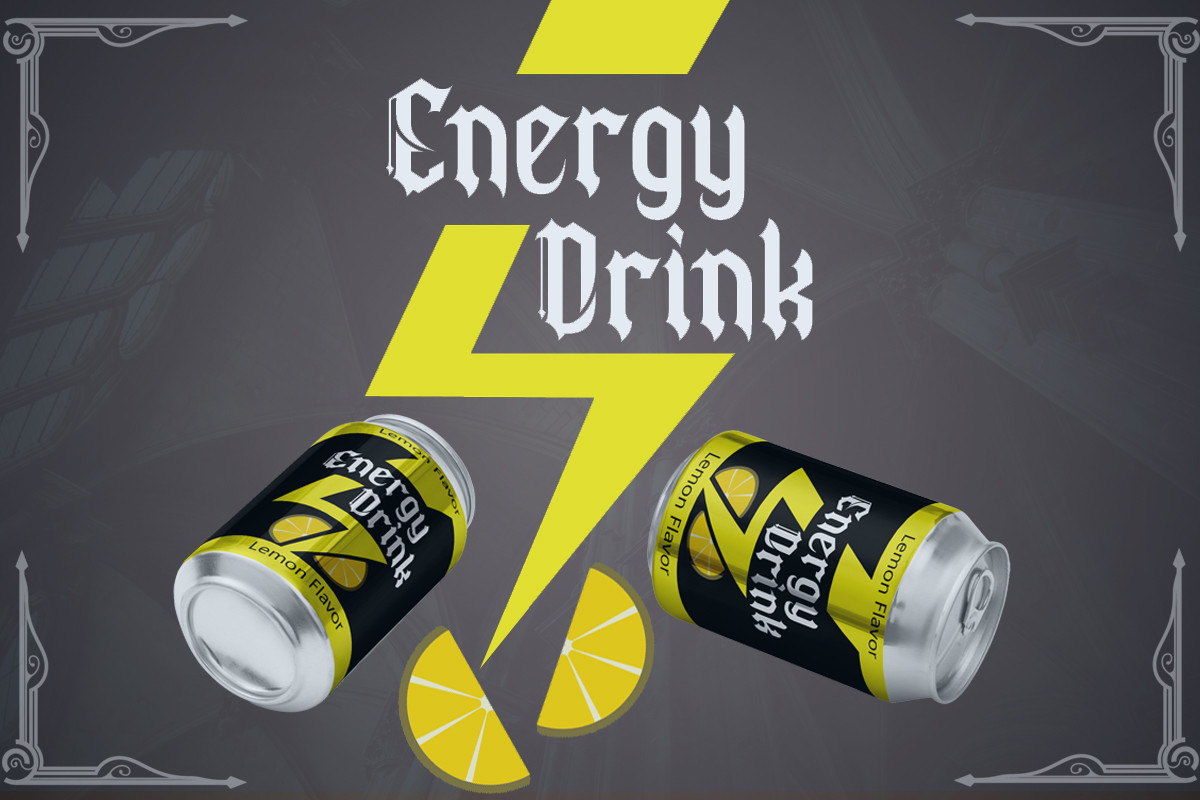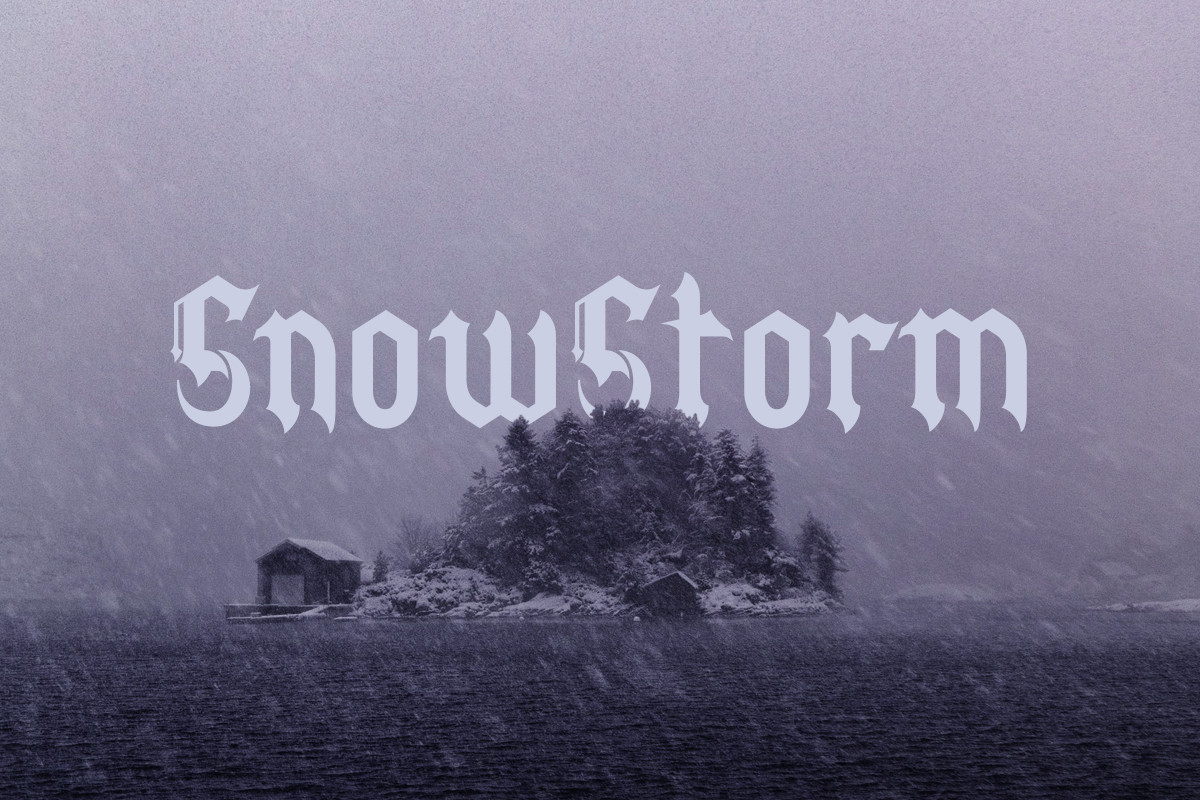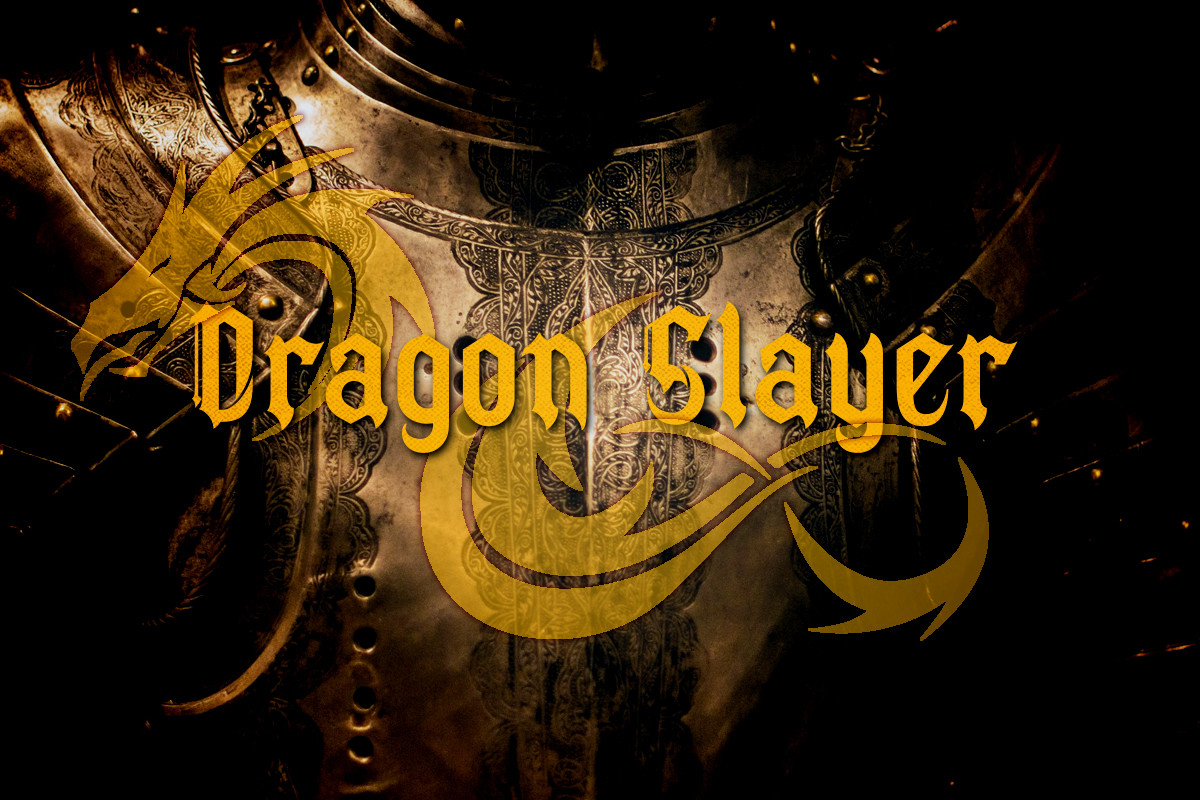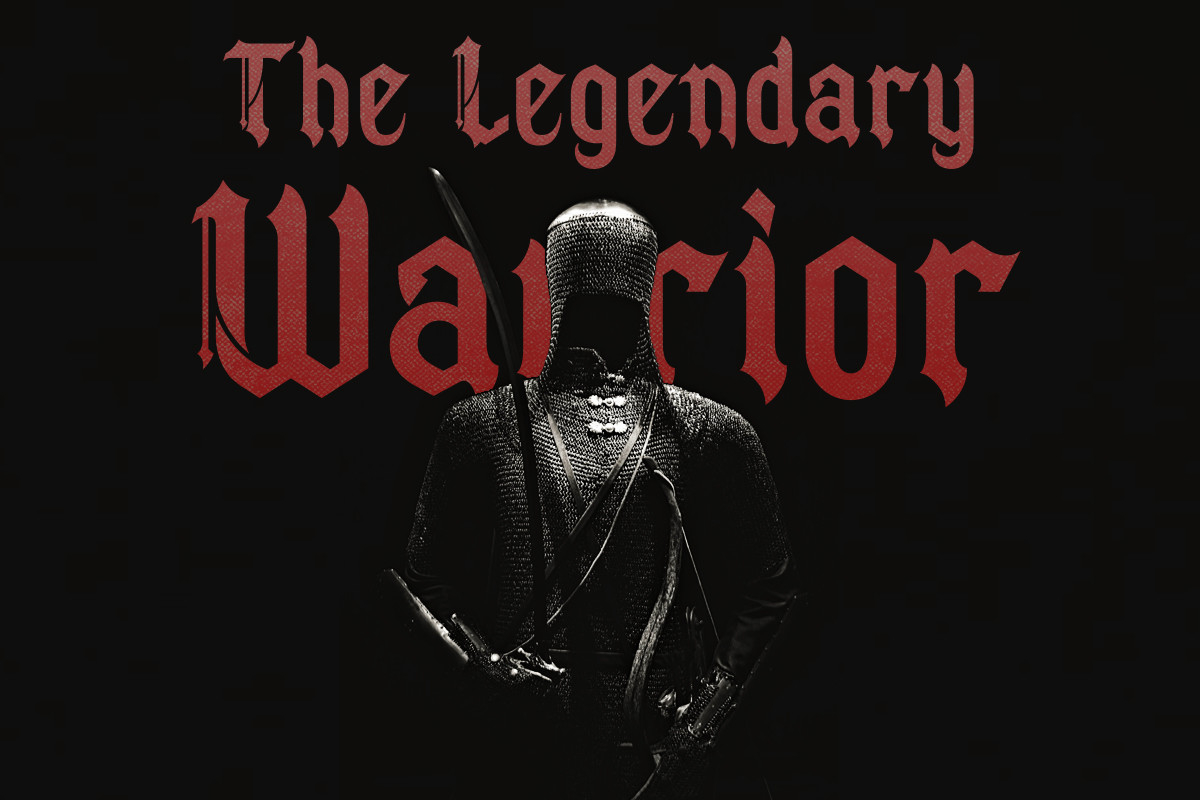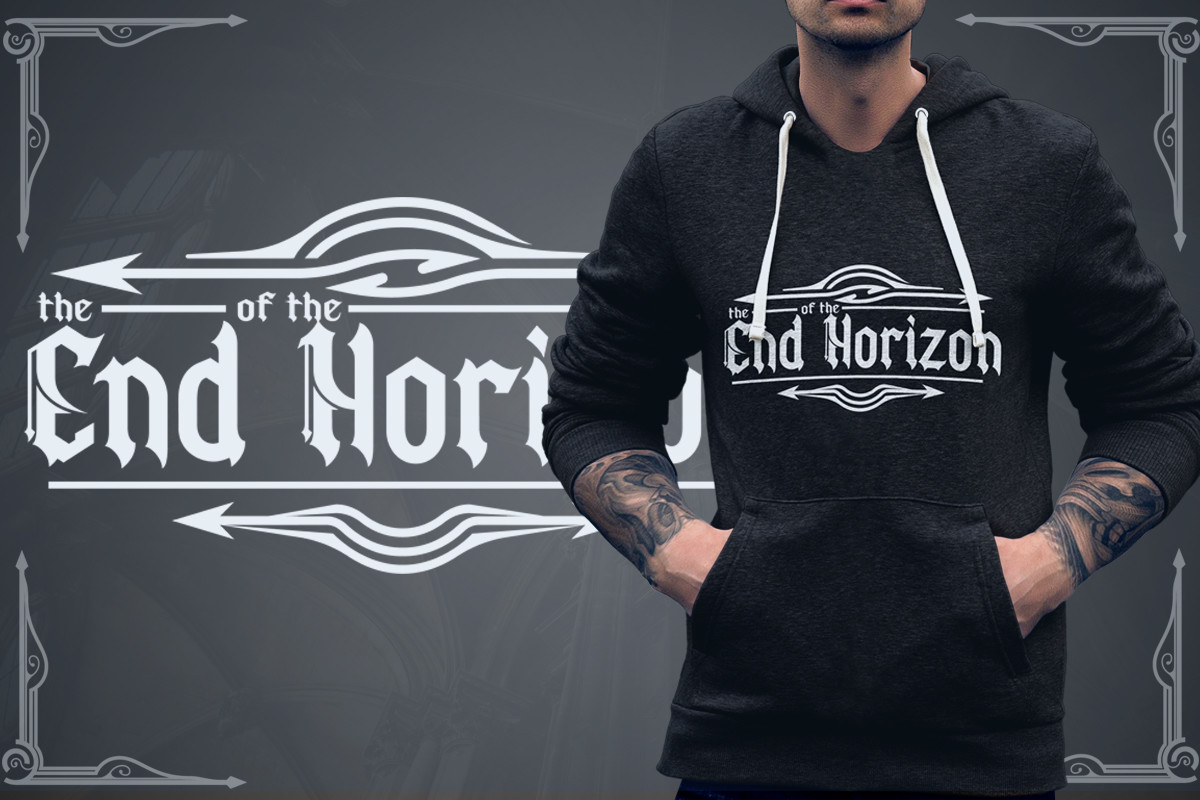
Jeztec Empire Font
About Jeztec Empire Font
Jeztec Empire is a unique blackletter-style font that will give you a stunning design. Jeztec Empire font is ideal for logo design, labels, posters, or pretty much anything else that requires a unique touch.